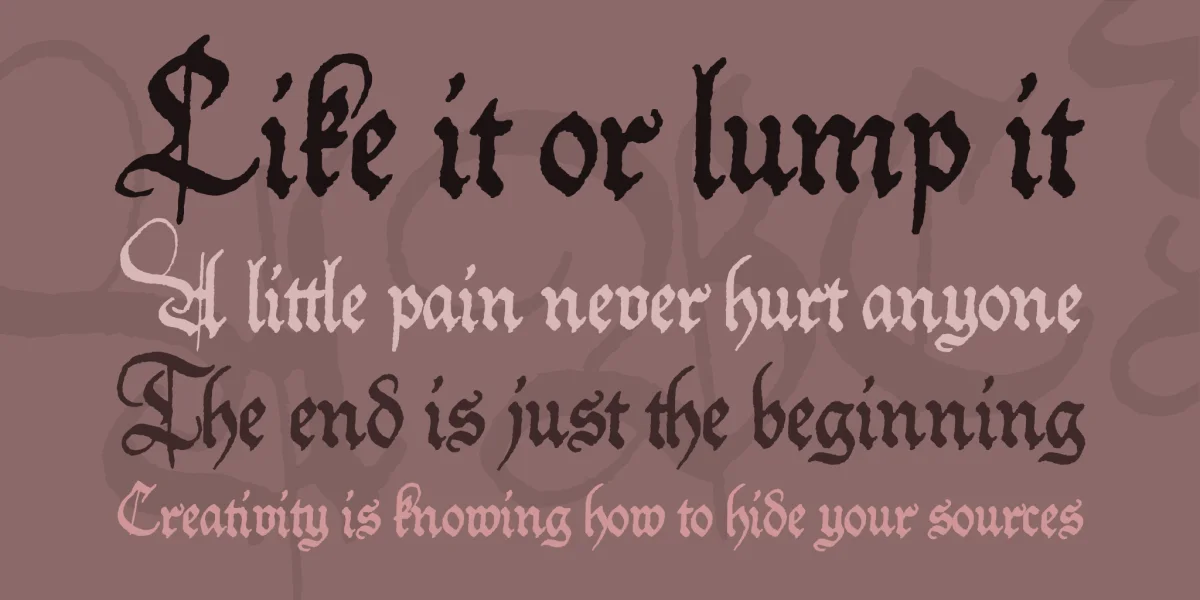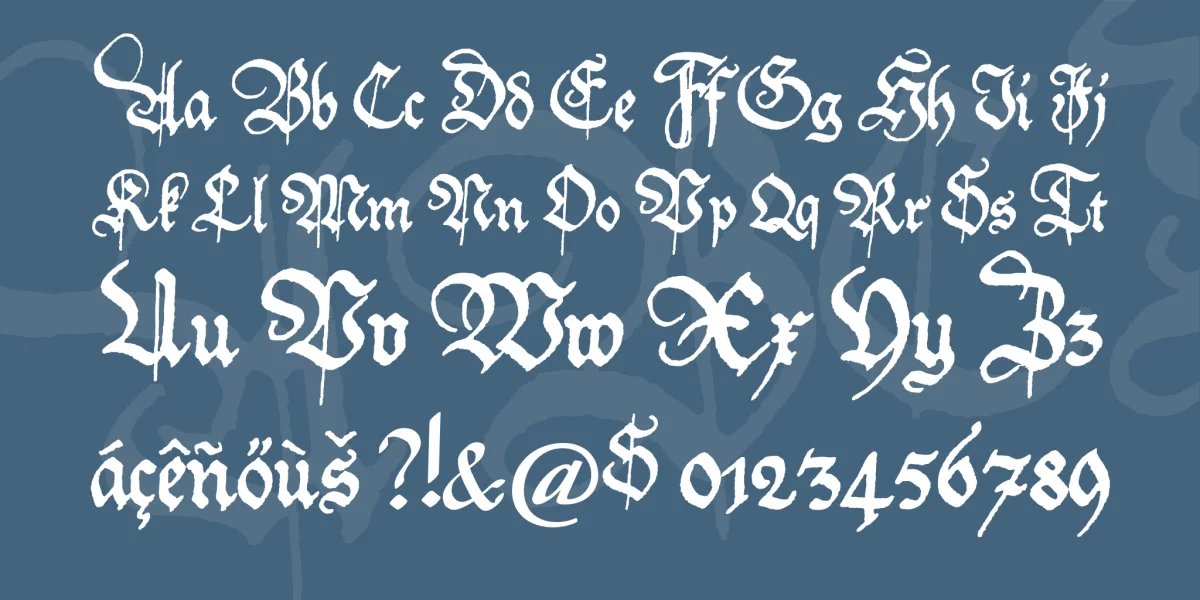
Translation of the original German description: This calligraphic blackletter was published by the Pelikan factories in Hannover in the instruction booklet Skriptol, a guide to the art of writing EW Baule. In this booklet from the 1930's, calligraphic writing with a fountain pen was introduced. In the booklet comprehensive 20 pages there are a number of heading styles that I will gradually digitize. Of course, if necessary, expanded to a complete font. The printed font styles are drawn by Baule with the fountain pen and I hereby decided to maintain the slight irregularities of the handwritten font.